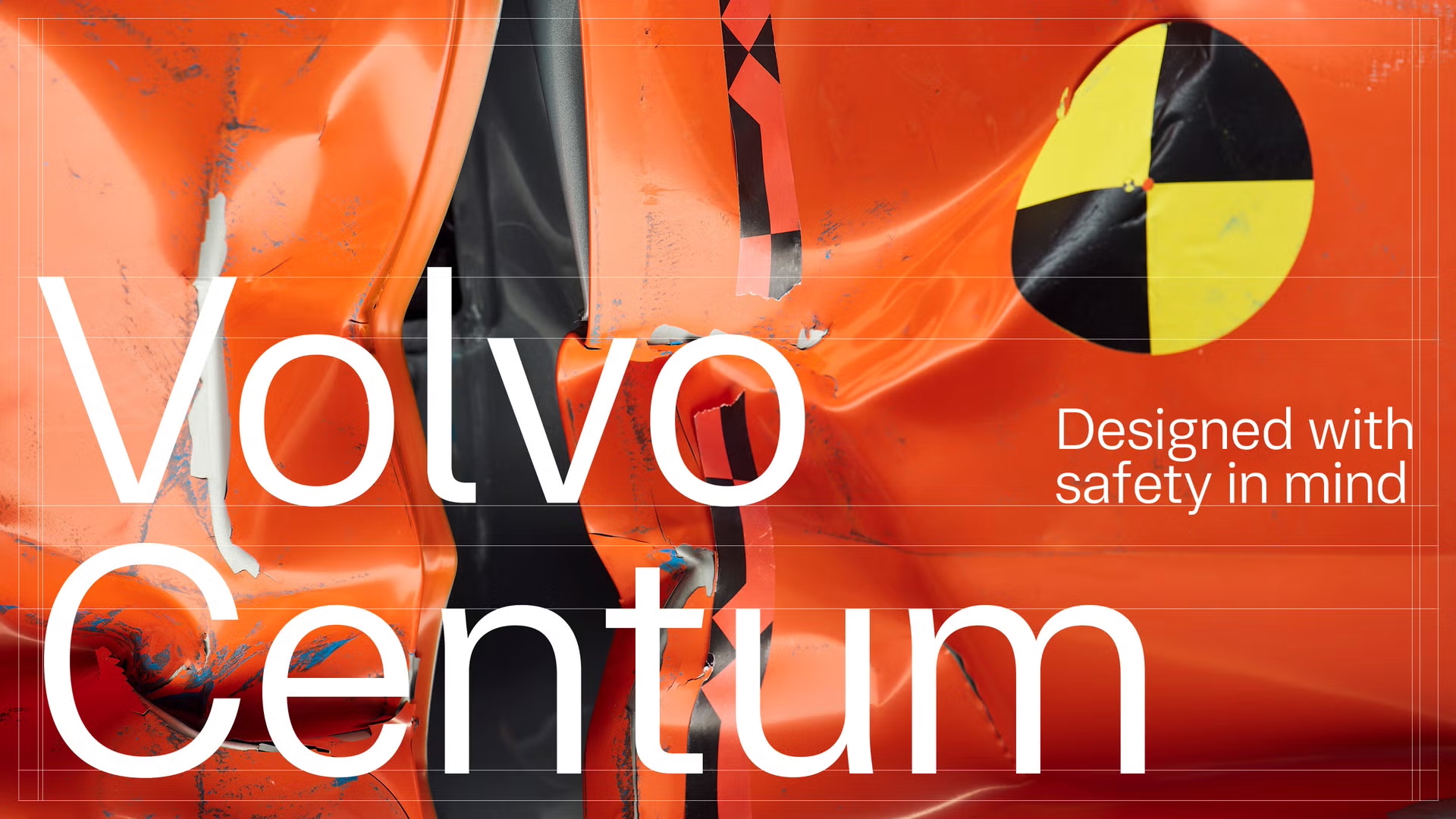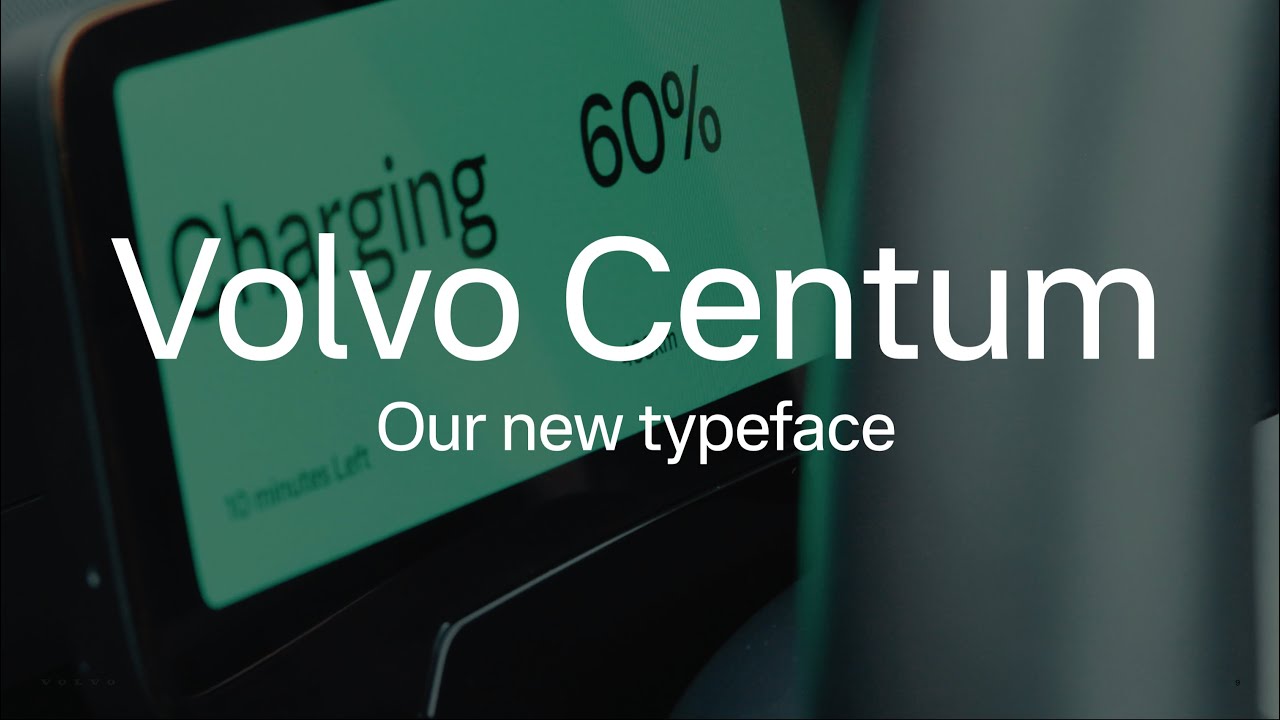
'Not just a typeface': Volvo's new font wants to keep you safe
Volvo Centum will arrive this year.
Decent typography design spins more plates than you might realise. The best examples are legible as well as impactful, and in some cases can even draw an emotional response. But when it comes to typography inside cars, there's another concern: safety.
Tesla has already fallen foul of this challenge, finding itself forced to recall a bunch of cars after a font was deemed unsafe due to legibility concerns. But Volvo thinks it has the answer, in the form of its new typeface: Volvo Centum.
Designed in collaboration with Dalton Maag, Volvo Centum is a bespoke typeface "designed to make reading faster, attention sharper, and the driving experience calmer."
"This isn’t just a typeface," Volvo announced. "It’s a quiet innovation in automotive design. Every curve, every terminal, every spacing decision was engineered to reduce visual noise and let drivers focus on what matters – safety, clarity, simplicity. Think of it as Scandinavian design for your eyes in motion."
“Designing for motion and glance-based reading requires a different mindset. This is typography engineered to perform under pressure, across languages, and at 100 km/h”, said Zeynep Akay, Creative Director at Dalton Maag.
The typeface is set to make its debut in the upcoming Volvo EX60. Its name, Centum, is a reference to Volvo Cars' upcoming centennial in 2027.